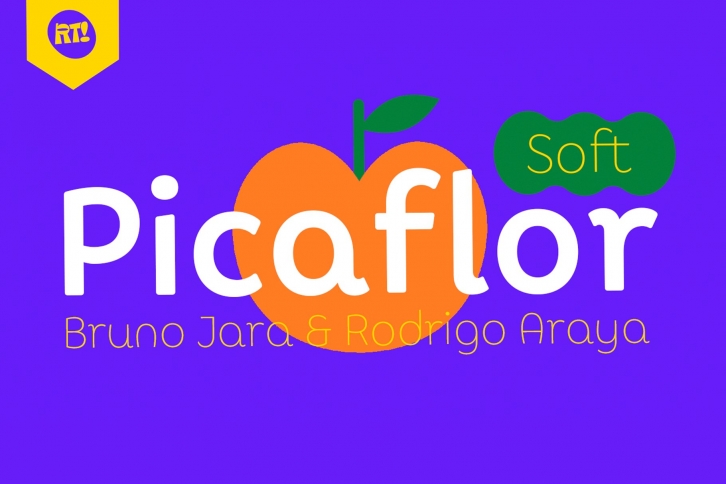
Picaflor Soft
Author:Rodrigo Araya, Bruno Jara
Concept:Â Picaflor soft, is a continuation of "Picaflor" now in a rounded version, especially for titles, it contains different styles from Thin-Black, in addition to multiple languages